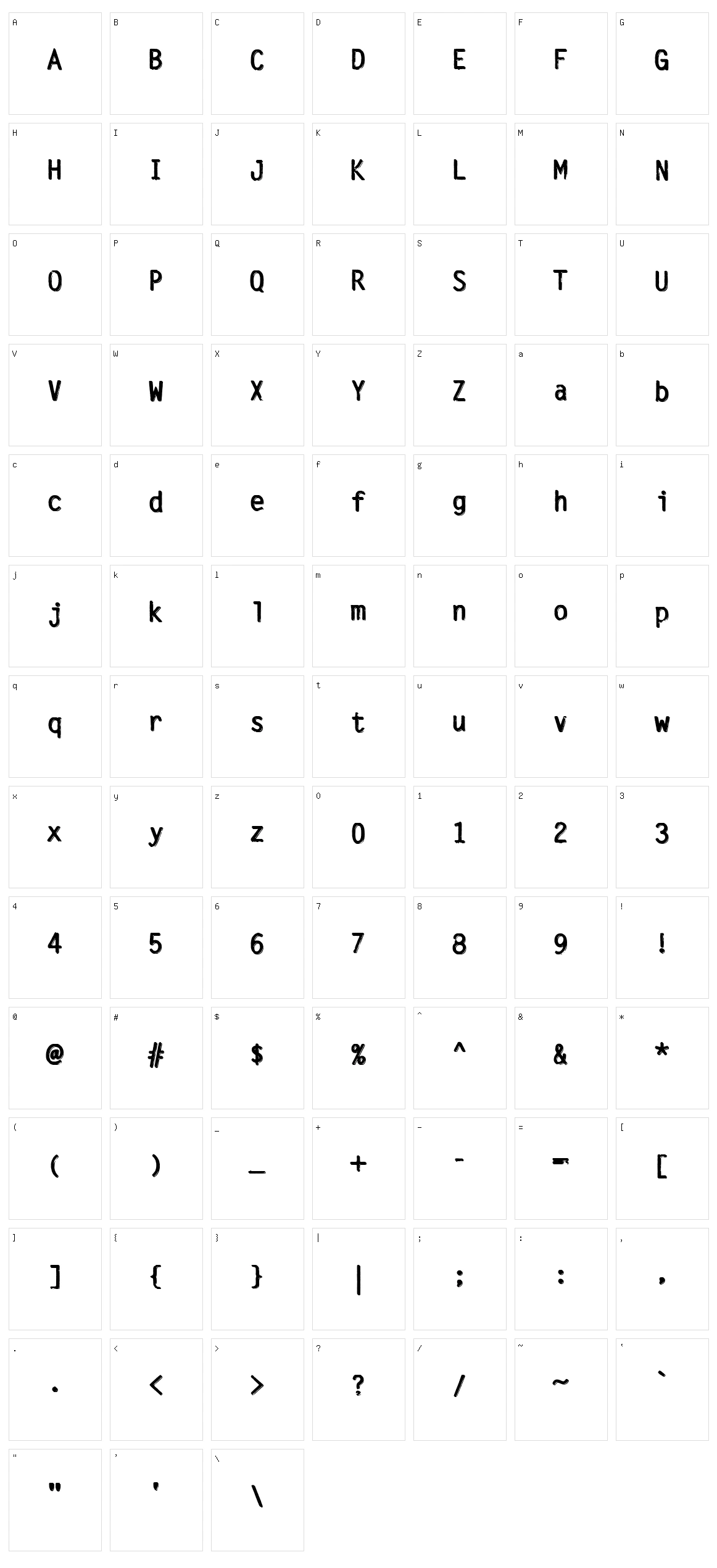
SILVERY TARJET
A Font by S. John Ross
This is a simple font created for a simple personal project, but it has a nice kind of easy, legible warmth, drawing its base forms from classic typewriter glyphs and then dancing somewhere a bit three-dimensional with it, with stress (since I love stress ... on fonts, I mean).